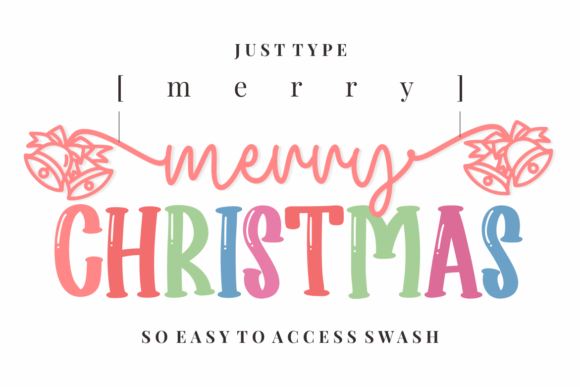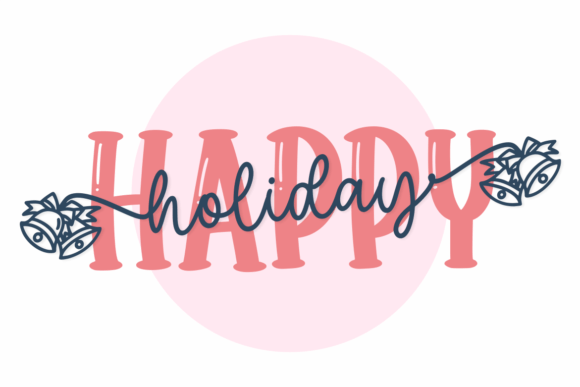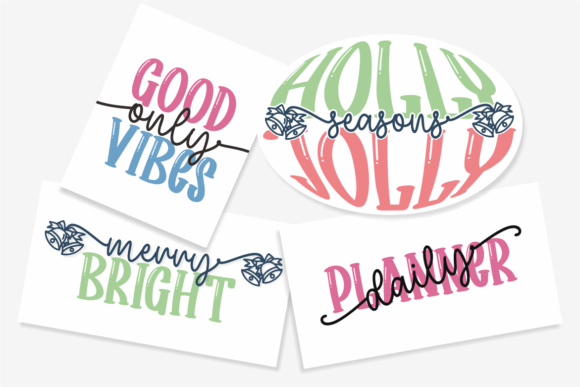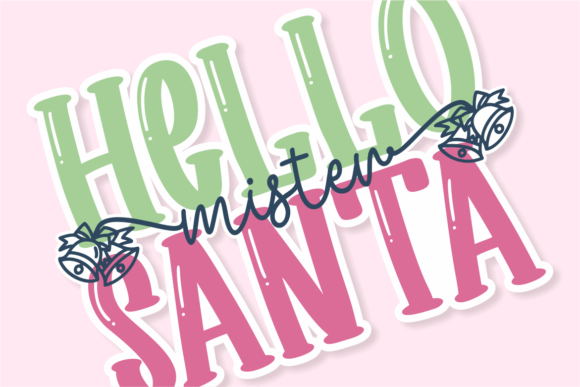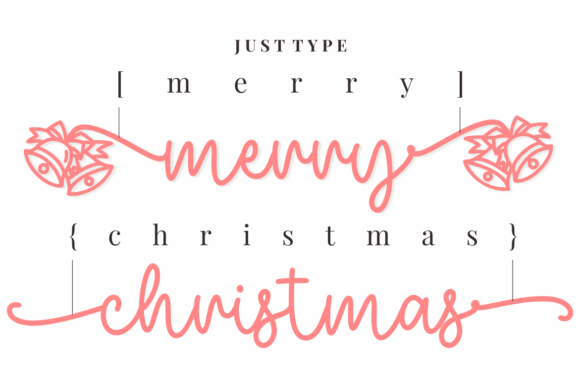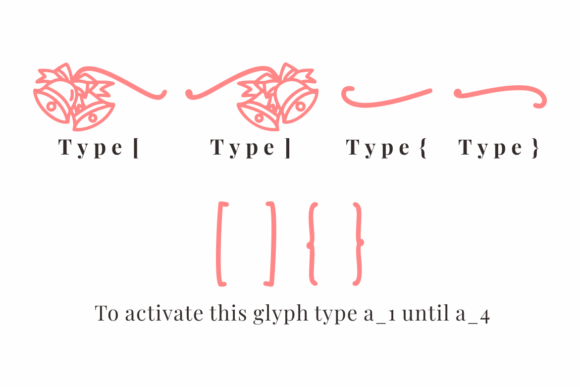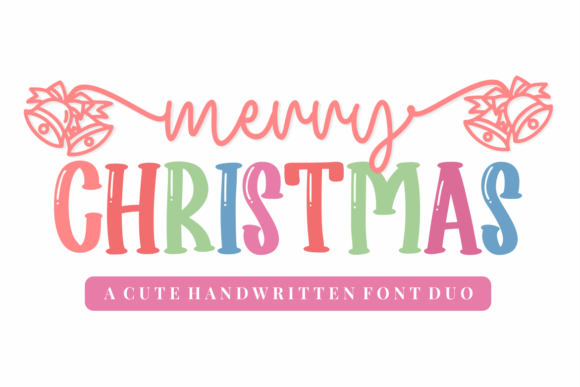
Introducing Christmas Duo Font: Add a Romantic Touch to Your Holiday Creations
Are you looking for a font that captures the essence of Christmas and adds a touch of romance to your designs? Look no further than the Christmas Duo Font, a charming and versatile font duo that’s perfect for a wide range of applications. In this article, we’ll explore the features and benefits of this delightful font, and show you how it can elevate your holiday creations.
What is Christmas Duo Font?
Christmas Duo Font is a carefully crafted font duo that consists of a display font and a monoline script font. This dynamic duo is designed to work together seamlessly, allowing you to create stunning visual effects and add a touch of festive flair to your designs. Whether you’re creating greeting cards, headlines, or any other Christmas-themed project, this font duo is sure to impress.
Key Features of Christmas Duo Font
- Playful and Cute Design: The Christmas Duo Font features a playful and cute design that’s perfect for creating festive and fun designs.
- Display and Monoline Script Fonts: The font duo includes a display font and a monoline script font that work together to create a stunning visual effect.
- Versatile and Adaptable: This font duo is suitable for a wide range of applications, from greeting cards to headlines, and any Christmas-themed project.
- Romantic Touch: The Christmas Duo Font is designed to add a romantic touch to your creations, making it perfect for holiday designs.
Benefits of Using Christmas Duo Font
So, why choose Christmas Duo Font for your holiday designs? Here are just a few benefits of using this amazing font duo:
- Save Time and Effort: With Christmas Duo Font, you can create stunning holiday designs in no time. The font duo is easy to use and comes with a range of features that make designing a breeze.
- Stand Out from the Crowd: The unique and playful design of Christmas Duo Font ensures that your designs will stand out from the crowd and grab attention.
- Professional-Looking Designs: The font duo is designed to create professional-looking designs that are perfect for both personal and commercial use.
Use Cases for Christmas Duo Font
So, what can you create with Christmas Duo Font? The possibilities are endless! Here are a few ideas to get you started:
- Greeting Cards: Create beautiful and festive greeting cards for your loved ones using Christmas Duo Font.
- Headlines and Titles: Use the display font to create stunning headlines and titles for your holiday designs.
- Christmas-Themed Projects: From holiday posters to Christmas party invitations, this font duo is perfect for any Christmas-themed project.
- Social Media Graphics: Create stunning social media graphics that showcase your holiday spirit using Christmas Duo Font.
Tips and Tricks for Using Christmas Duo Font
Here are a few tips and tricks to help you get the most out of Christmas Duo Font:
- Experiment with Different Colors: Try out different color combinations to find the perfect look for your holiday designs.
- Mix and Match Fonts: Experiment with different font combinations to create unique and interesting visual effects.
- Add Festive Elements: Add festive elements such as holly, snowflakes, or Christmas trees to your designs to make them more festive.